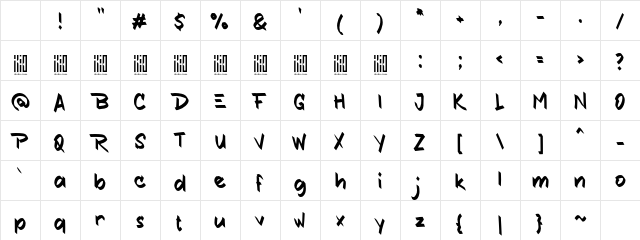
Newkids Crew has an approachable, lighthearted character - its loose, expressive forms are well-suited to children's content, casual branding, and fun-first design.
Font Pairing: Pairs well with a rounded or humanist sans for body copy, maintaining the friendly tone without relying on Newkids Crew to carry extended reading.
Pro Tip: Use Newkids Crew at larger display sizes where its expressive character can land. Pair with a clean, simple sans for body copy to maintain readability.